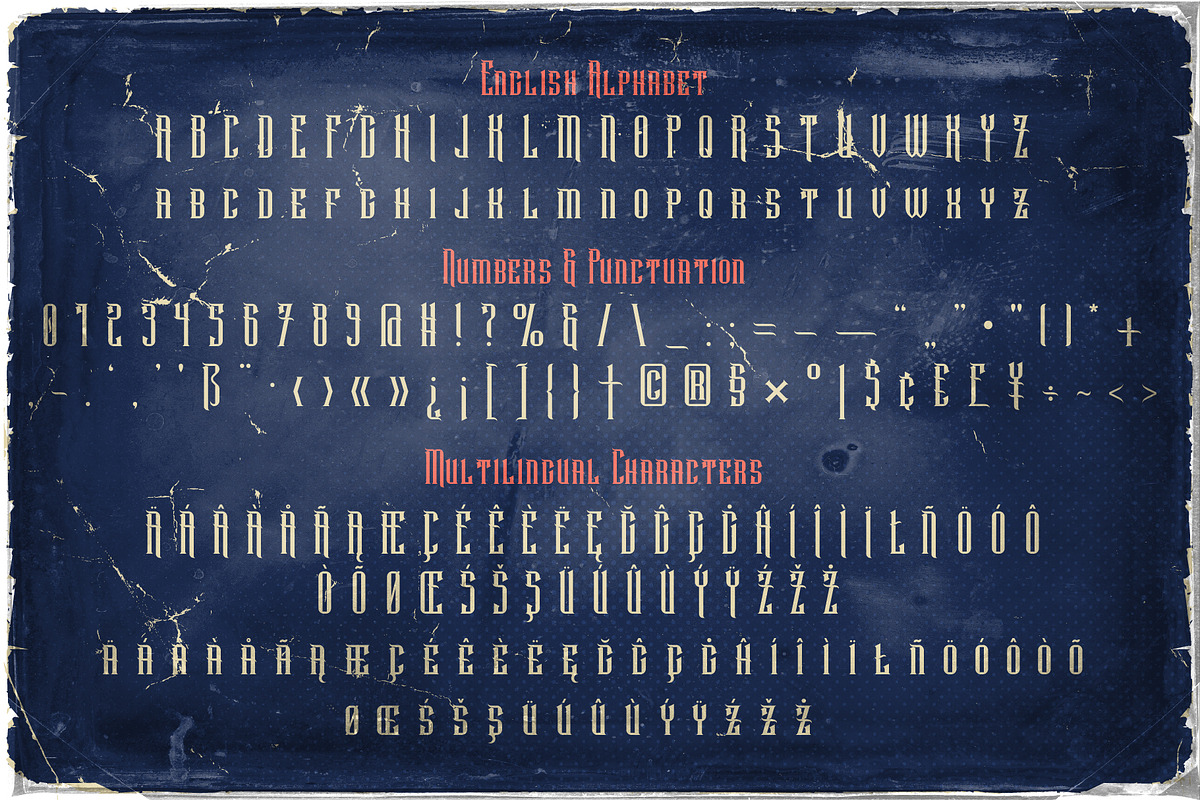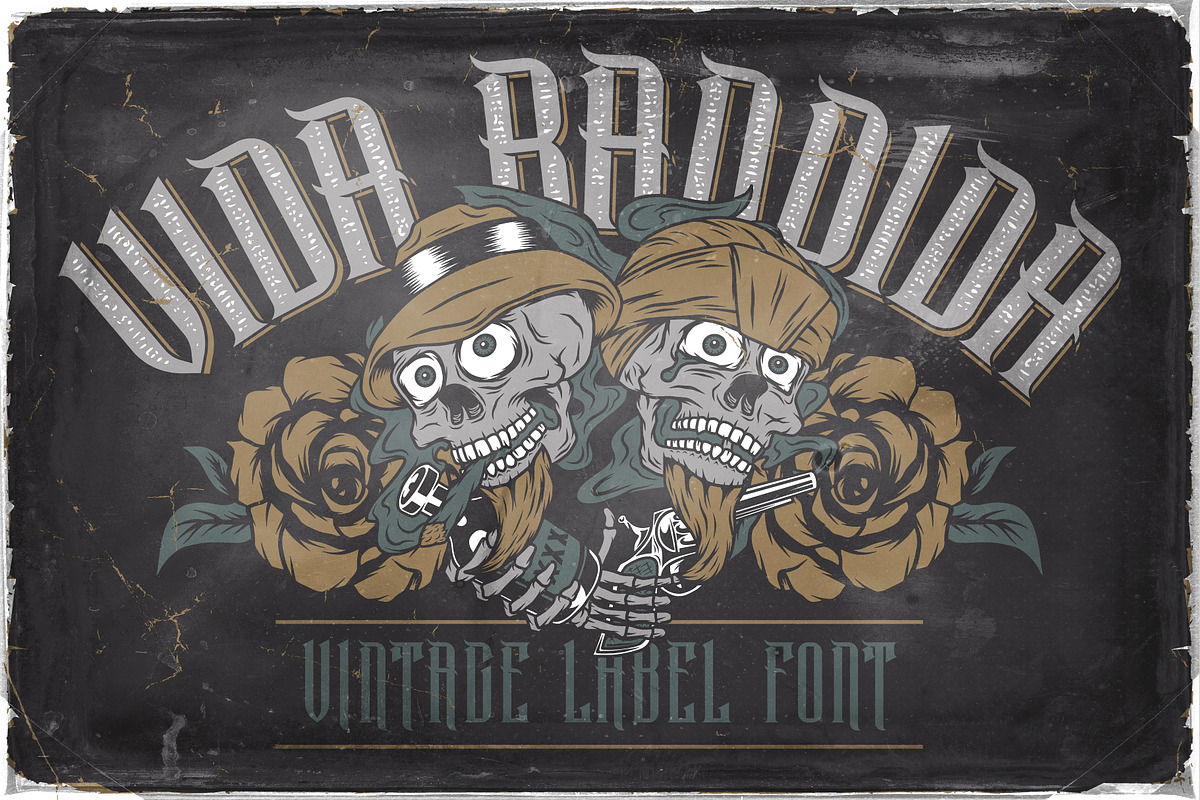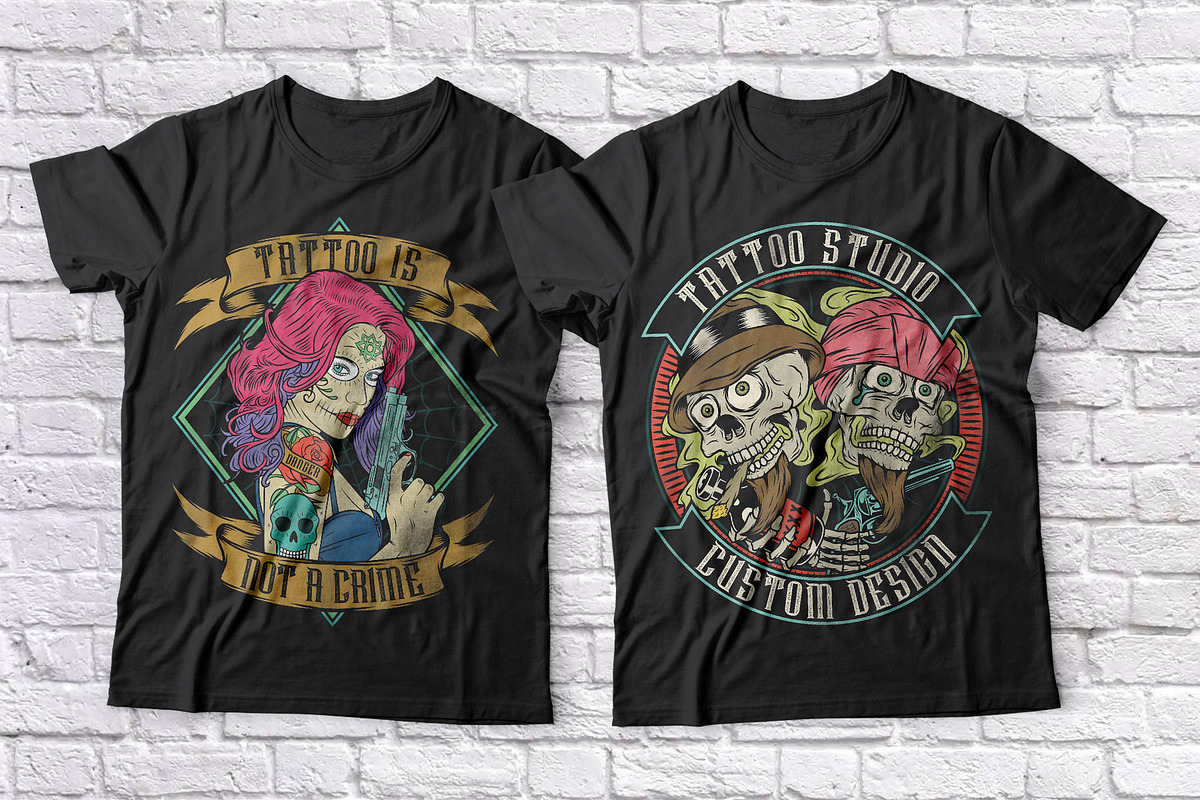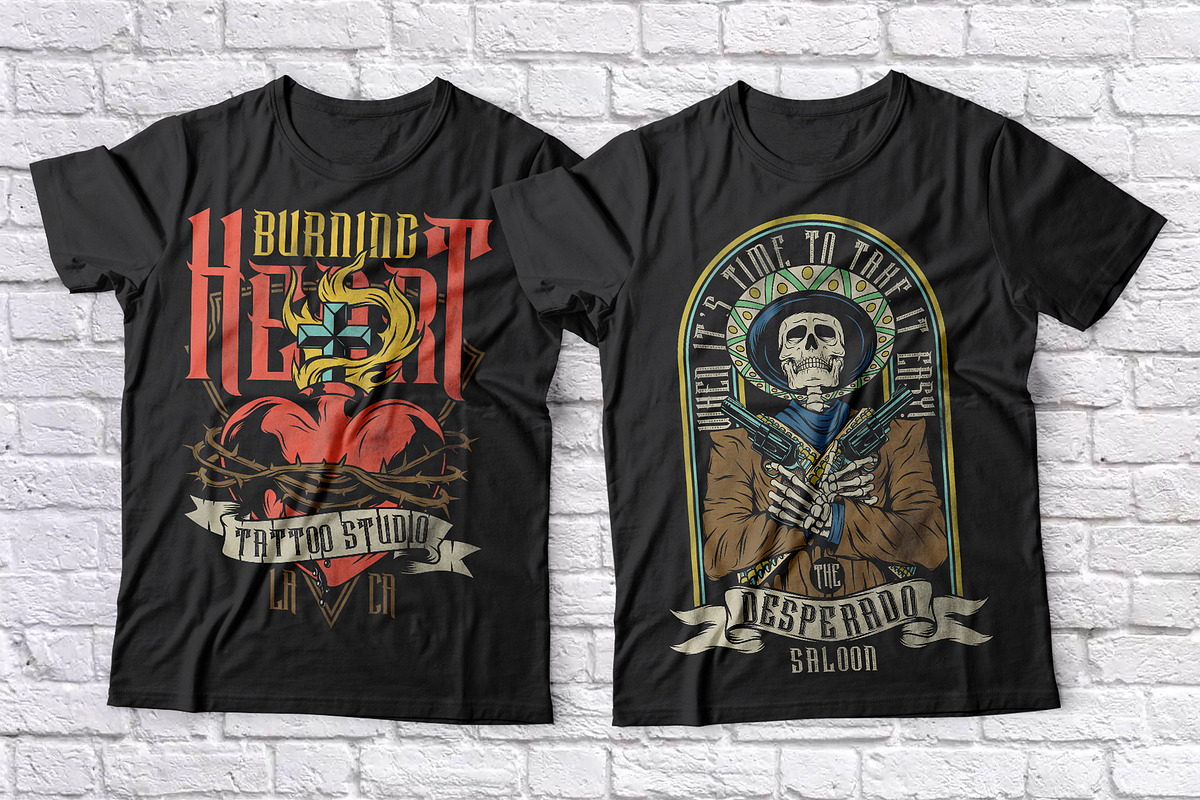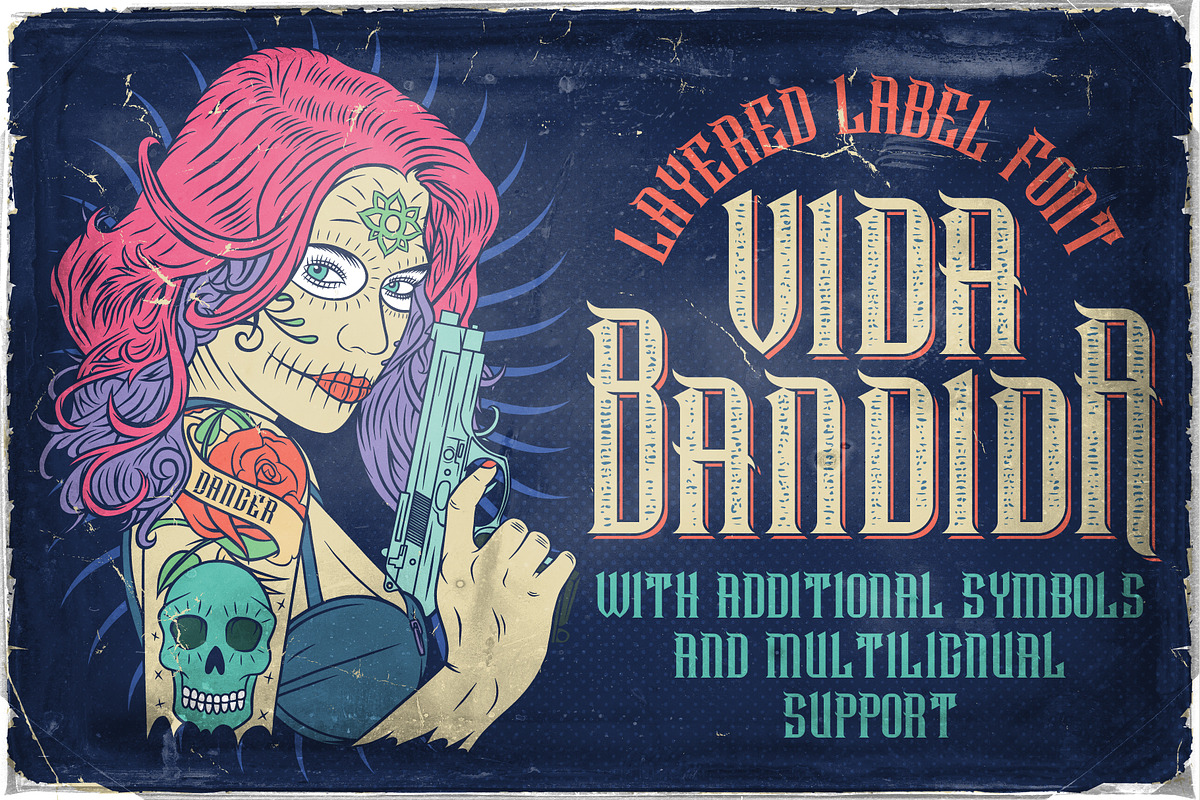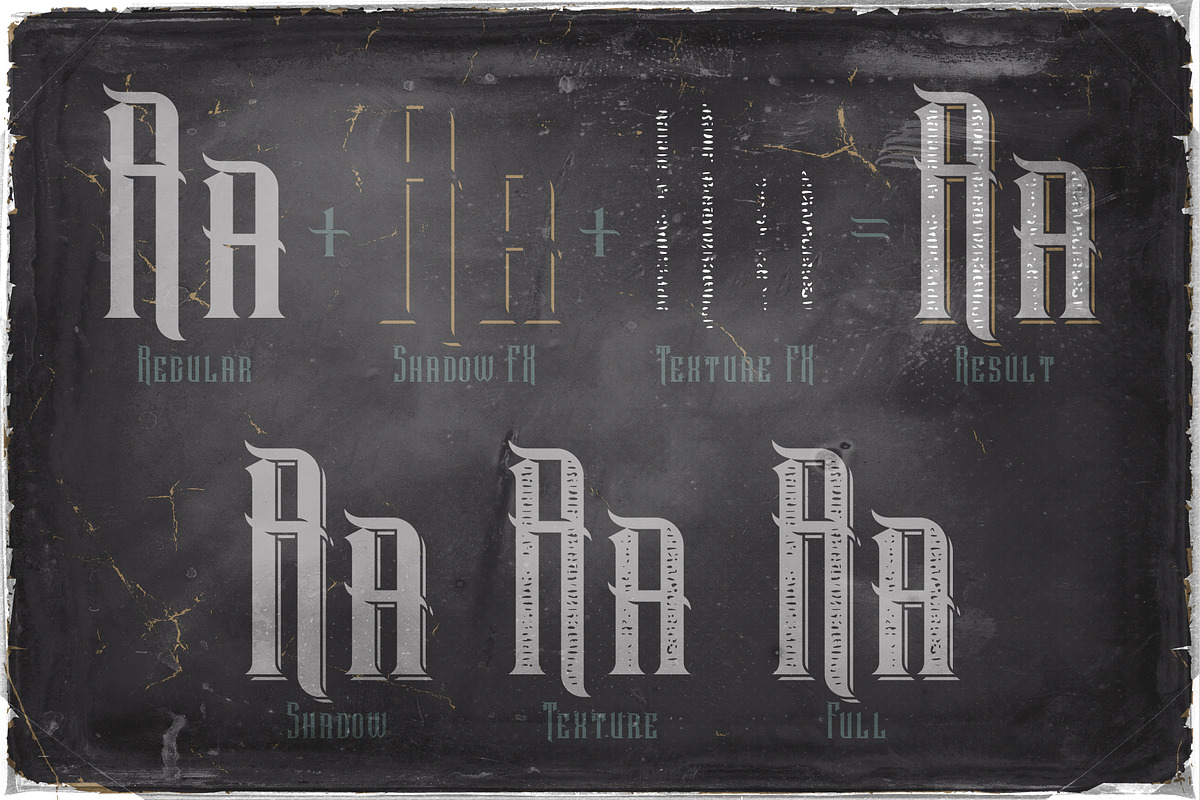
Vida Bandida
Introducing vintage label font named Vida Bandida. It is based on my other font, Black Widow. All available characters you can see at the screenshots. This font has six styles: Regular, Full, Shadow, Shadow FX, Texture and Texture FX. This font will look good on any vintsge styled designs like a poster, T-shirt, label, logo, etc.
- A lot of additional symbols and multilingual support.